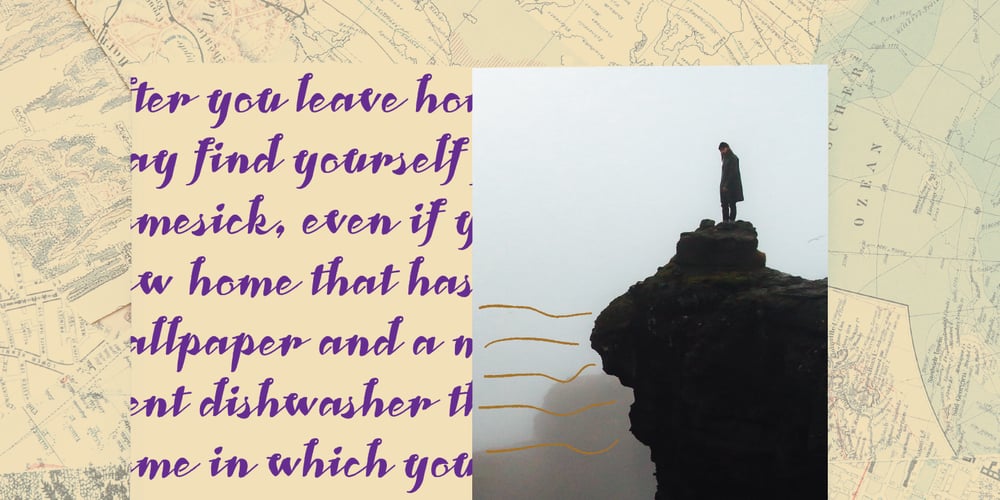
Landsick Font Family was designed by Dusan Jelesijevic and published by Tour De Force. Landsick contains 1 styles and family package options. Landsick is single weight script family. It’s charming, it’s characteristic, it’s lively and playful. Ready to be used everywhere.